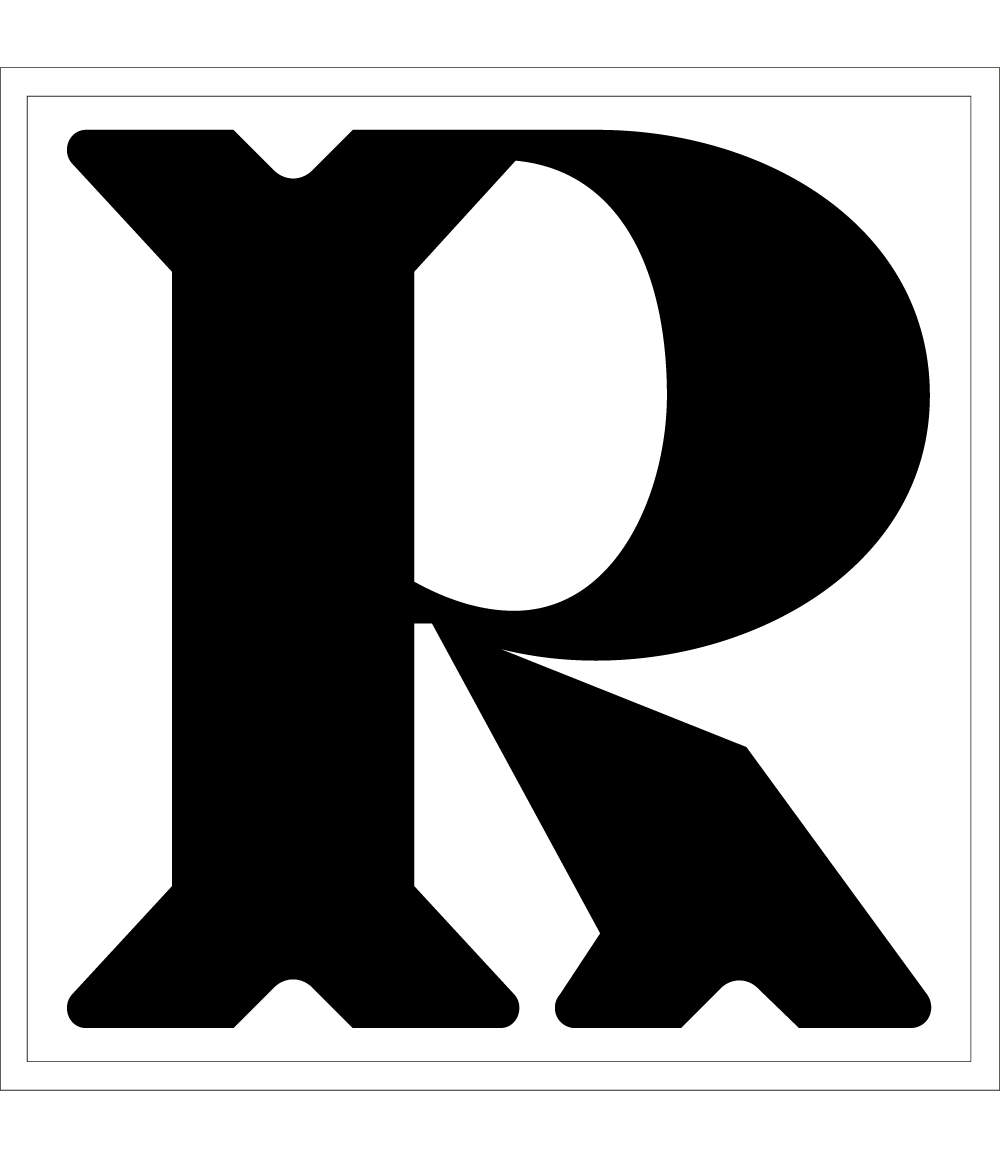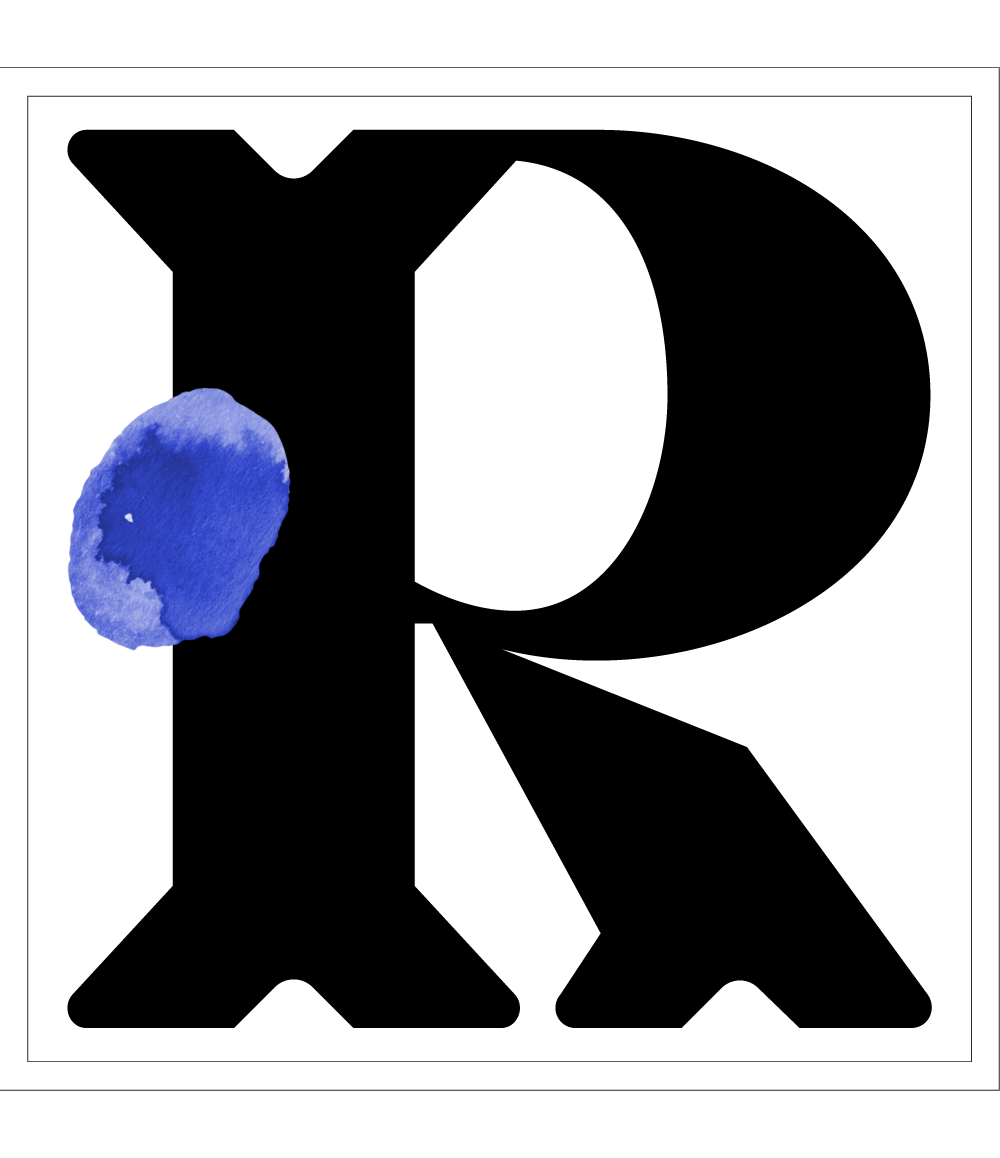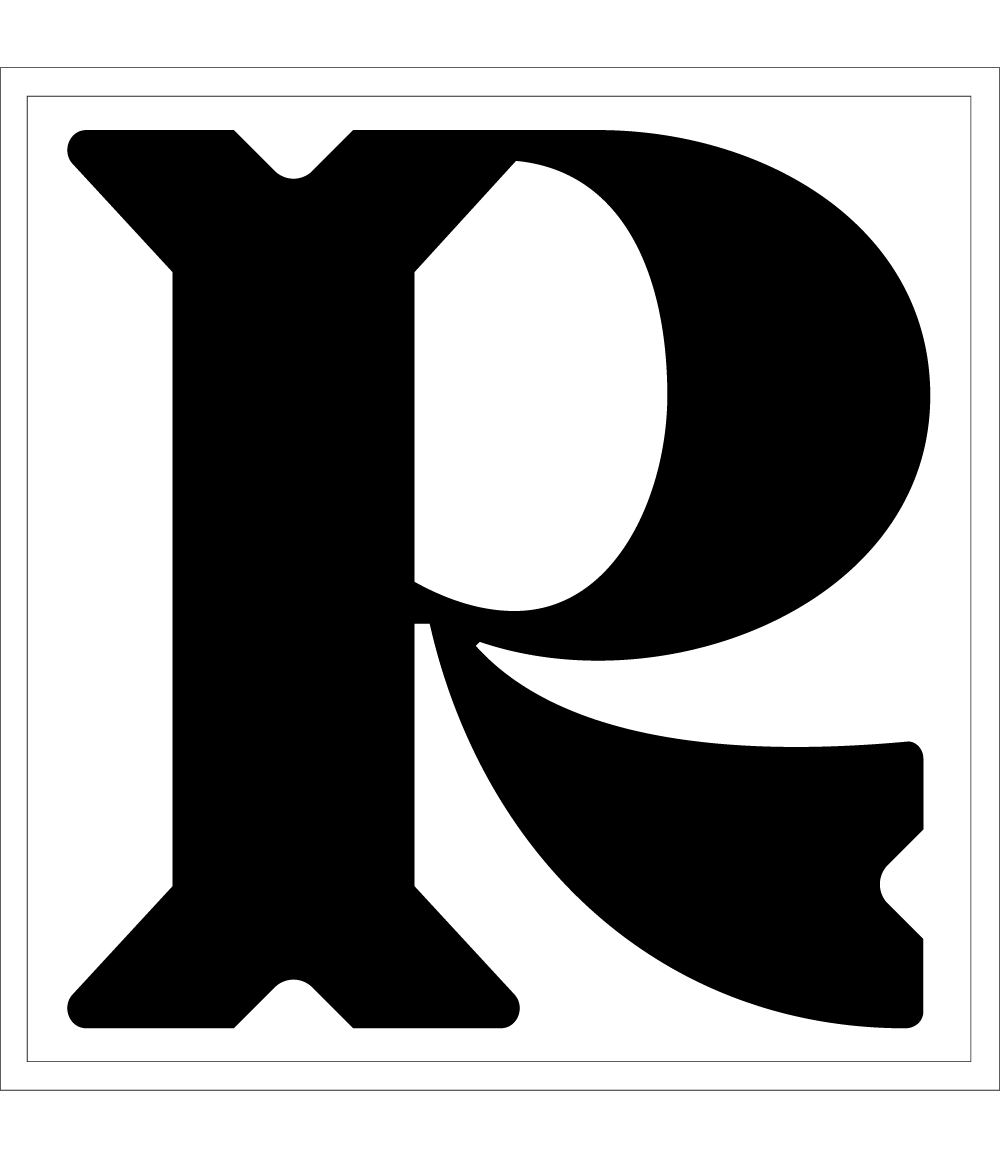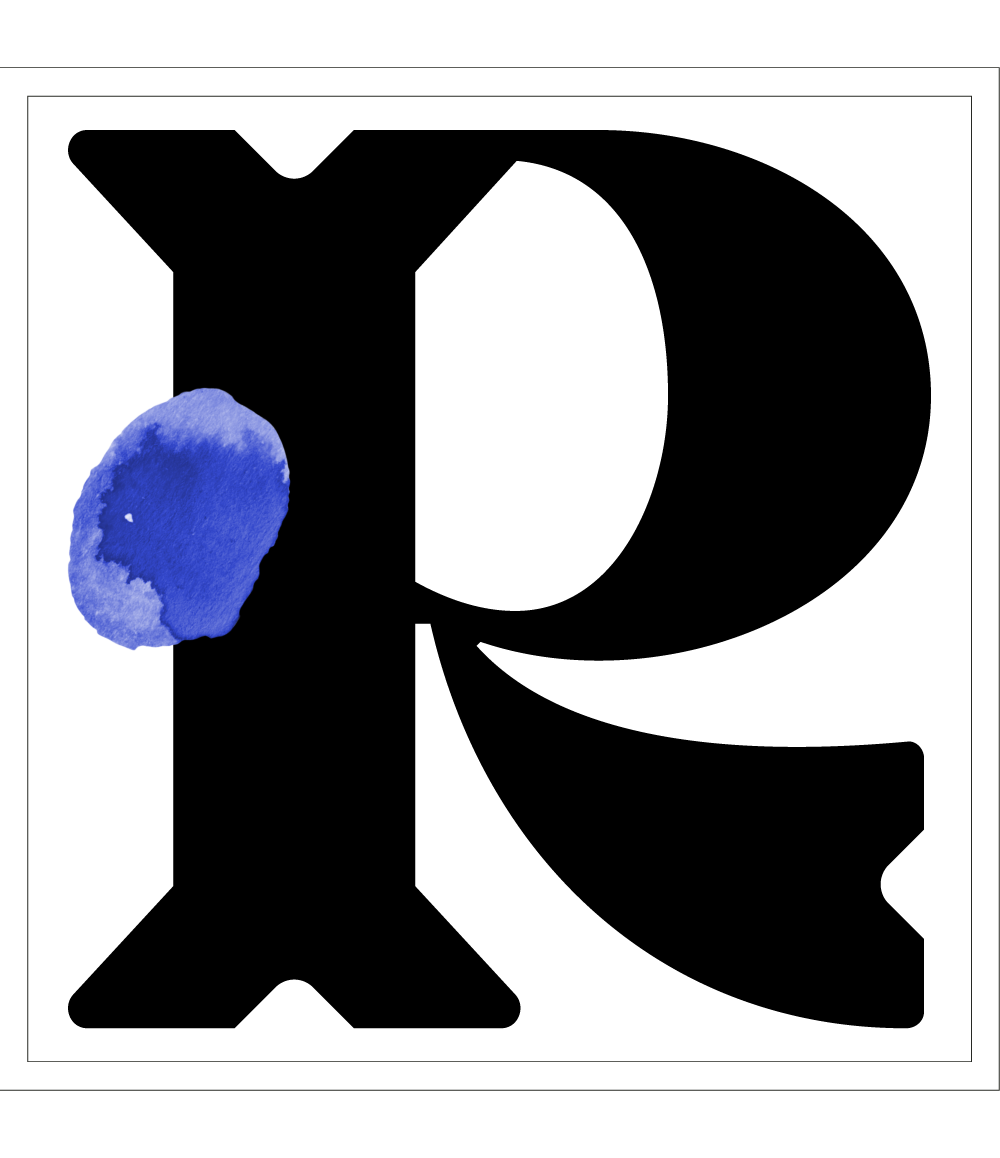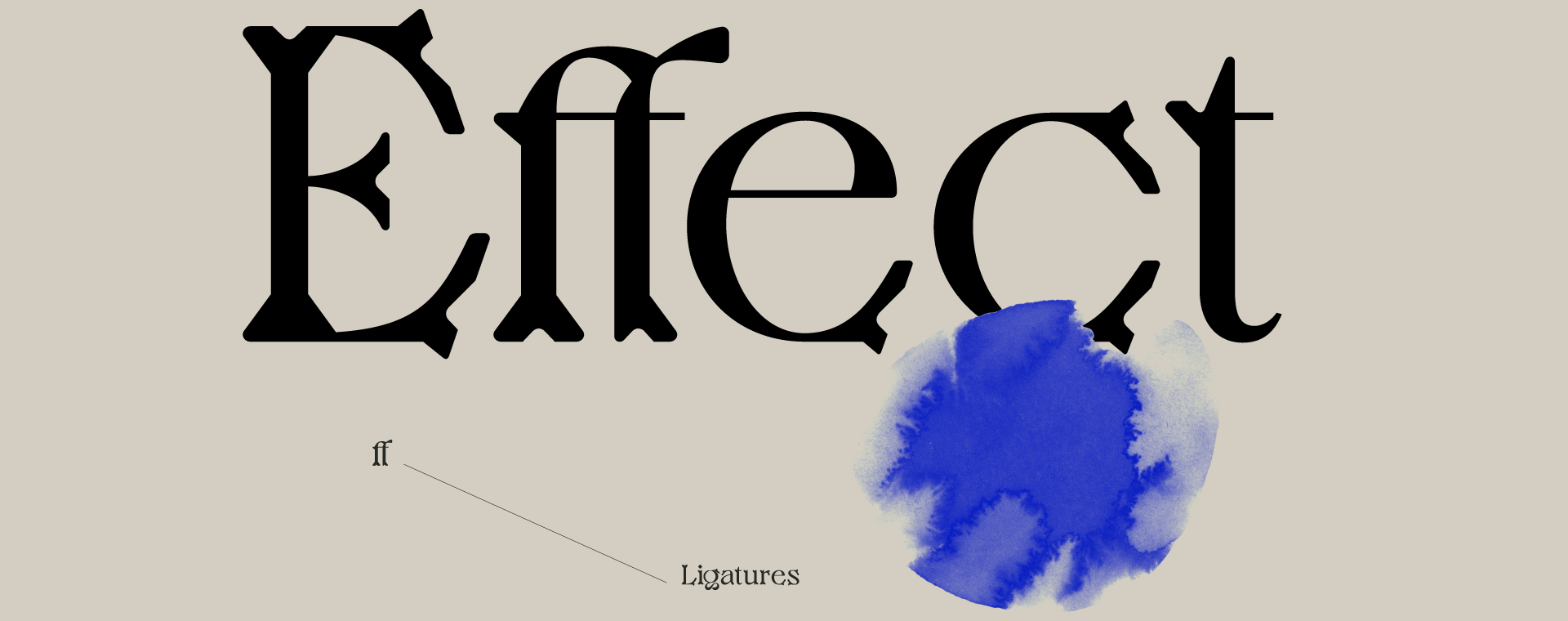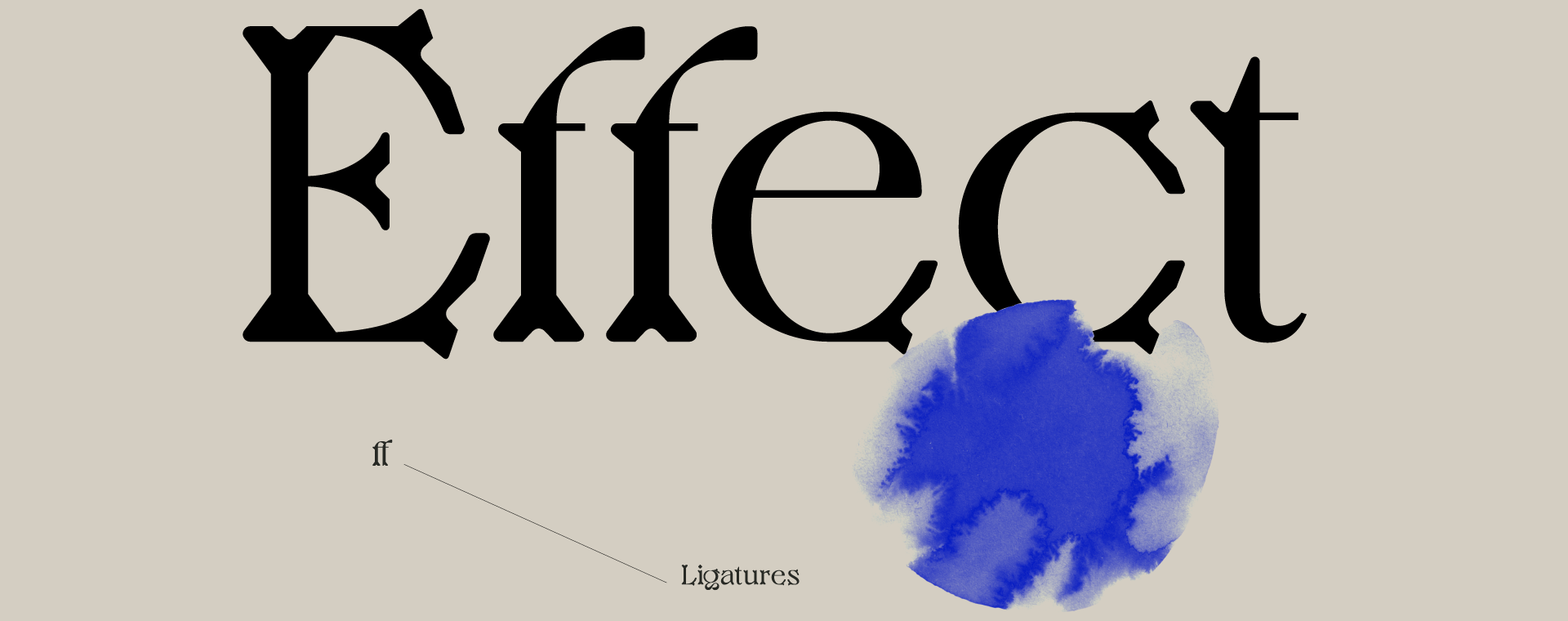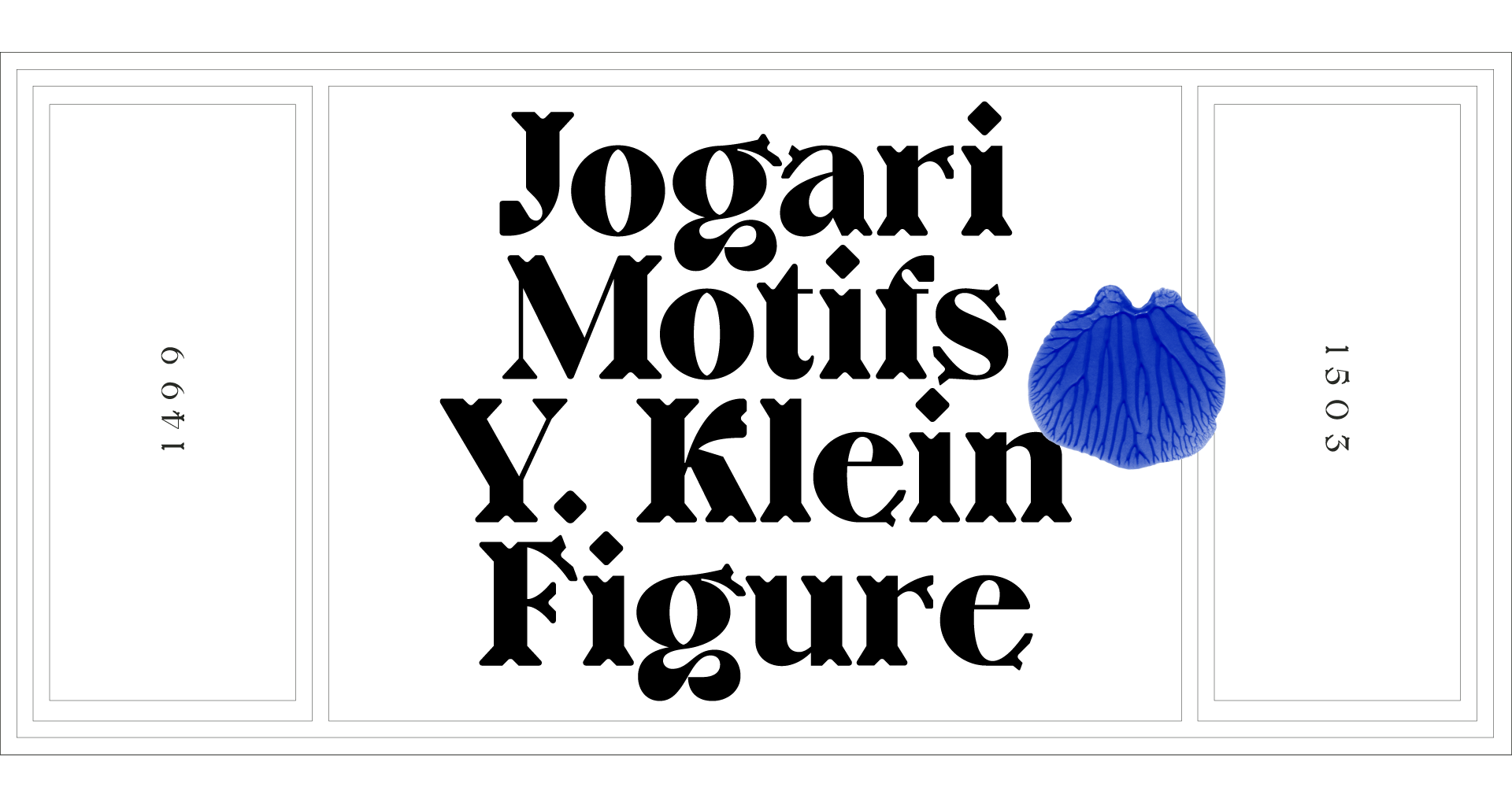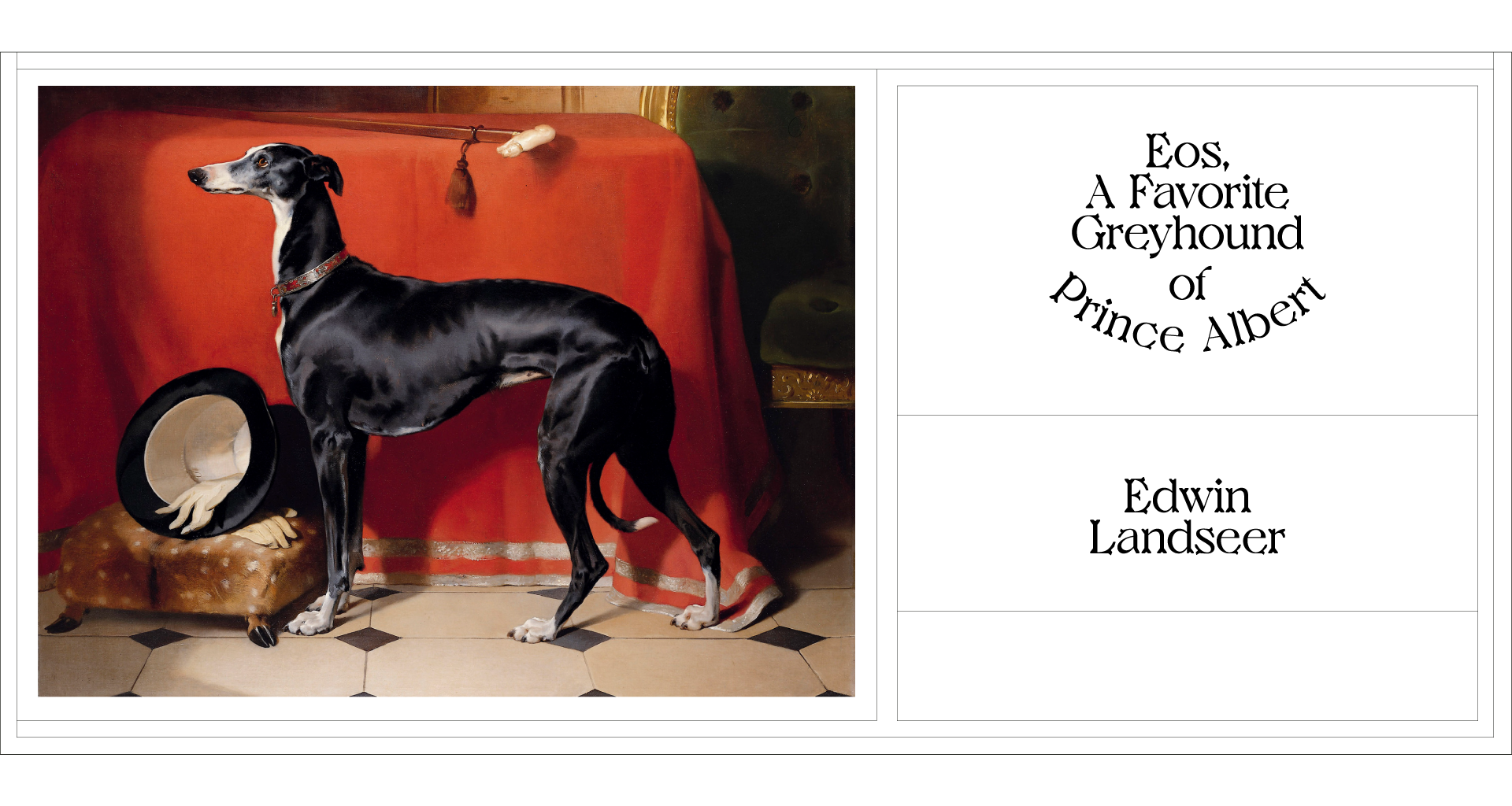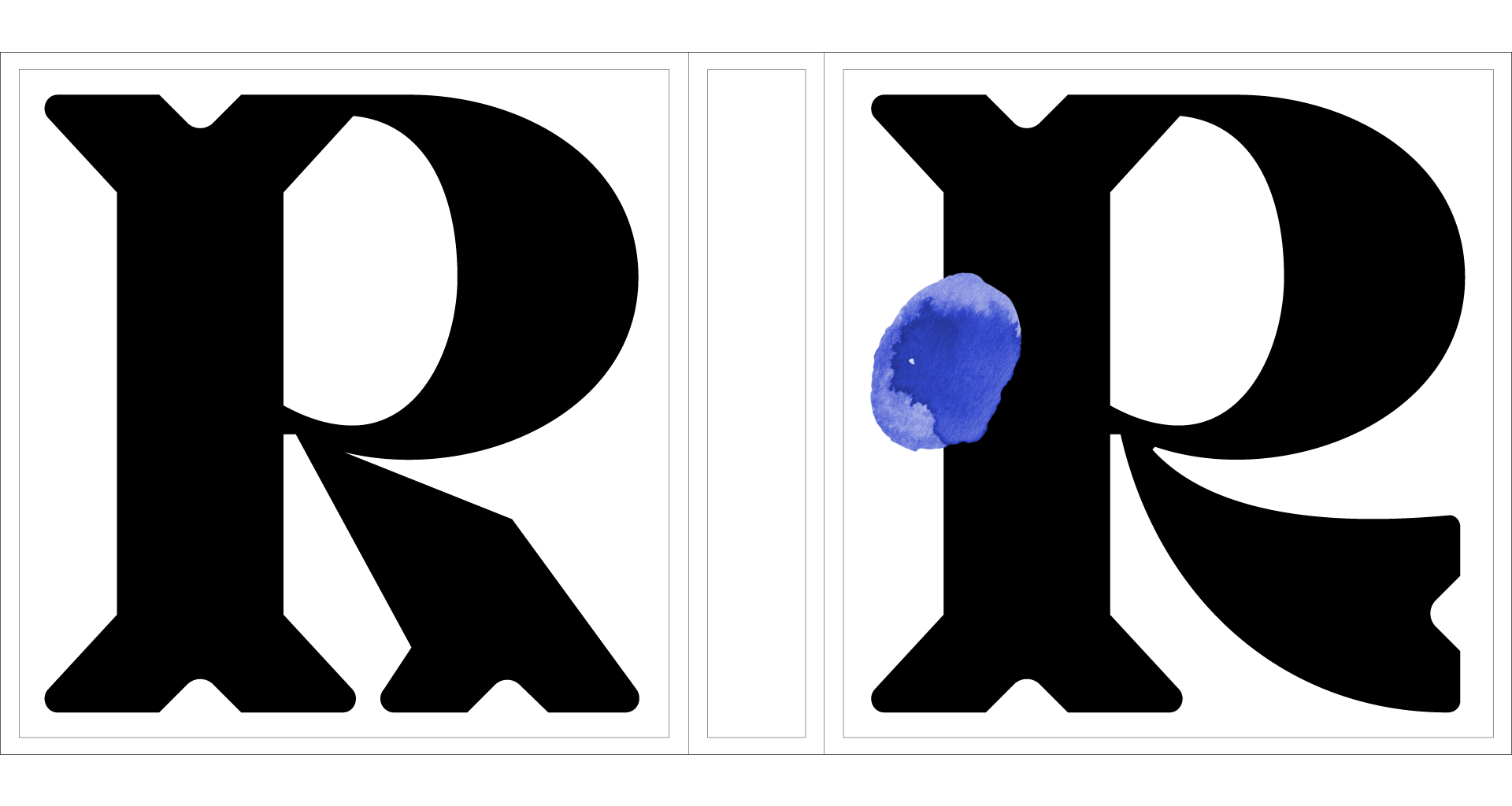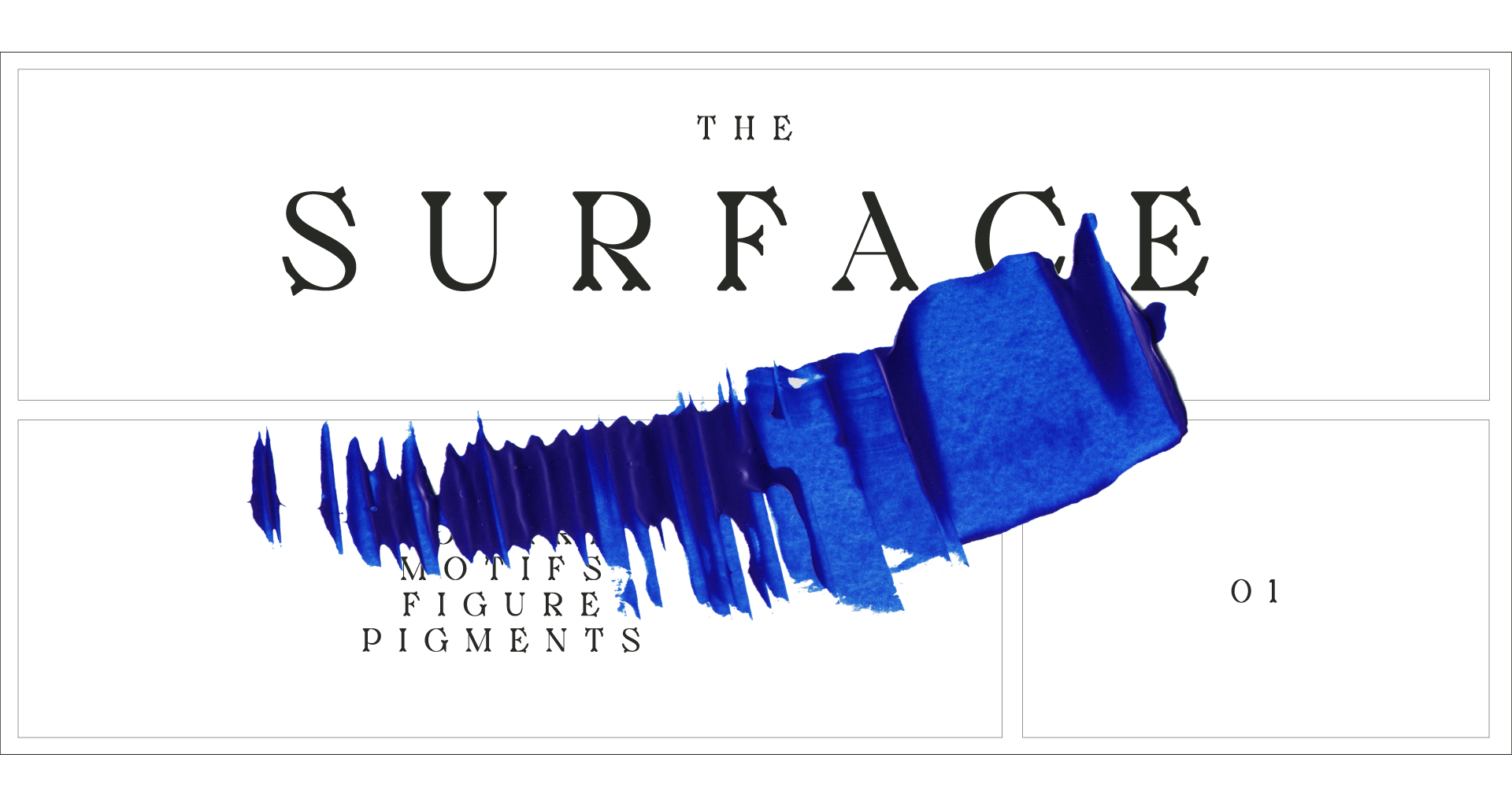
Jager
• Display - 1 weight
Master Regular & Bold Classic Regular & Bold
• Designer
Jérémy Schneider
Jäger is a display typeface, useful for headlines or short to medium-length texts. It was designed in 2020 by Jérémy Schneider for VJ Type. The font’s release falls five years after the first drawings were developed for an exhibition at the Musées des Arts Décoratifs in Paris dedicated to contemporary art crafts. Jäger is a tribute to fine craftsmanship. The font is very directly inspired by techniques mastered by craftsmen in their work. We thus see the hollowed-out counter forms reminiscent of engravings, sculptures or working with chisels. The angles give the impression of having been cut in wood, the contours are rounded, never sharp. Each weight offers two versions: the Jäger Master version which is the original, most advanced, most daring design, and the Jäger Classic version in which the counter forms at the tops of the letters have been filled in to offer a smoother and more versatile option.
Ligatures